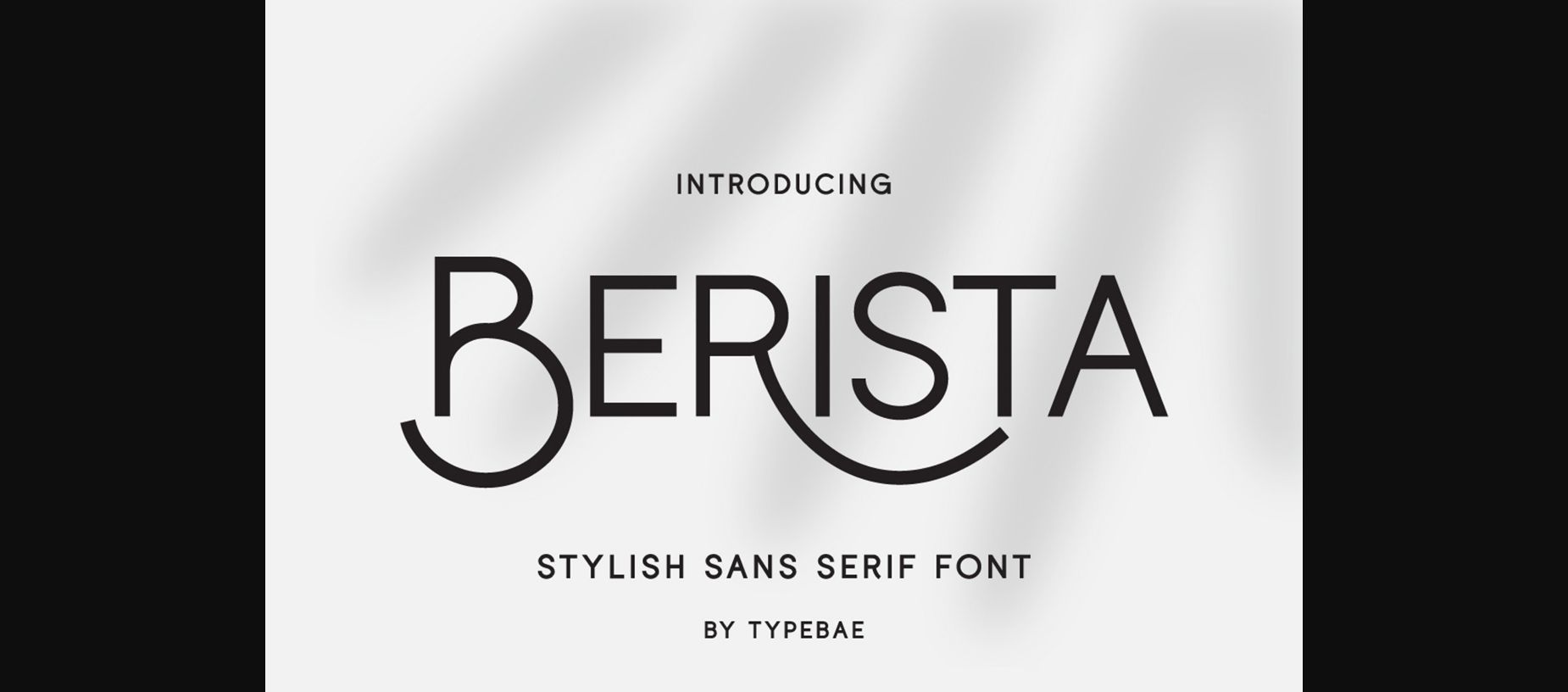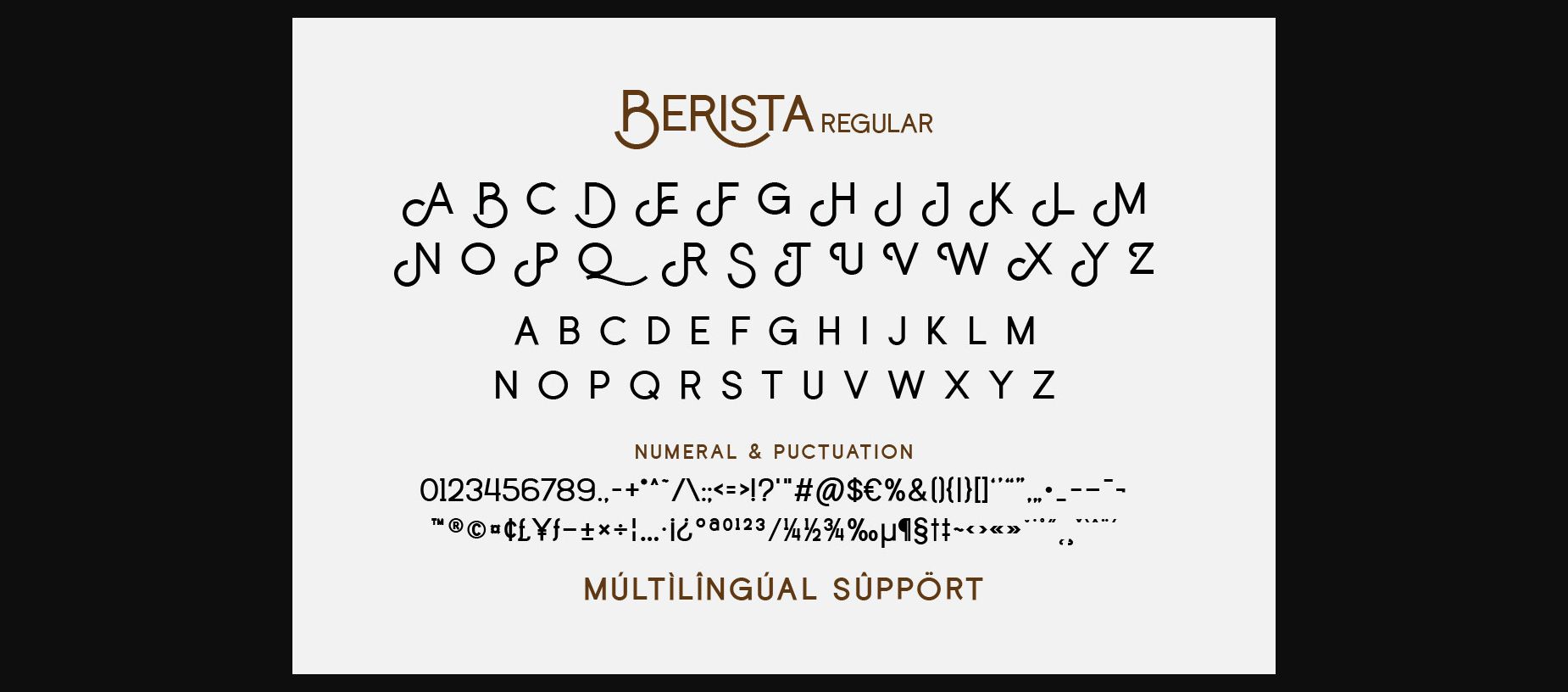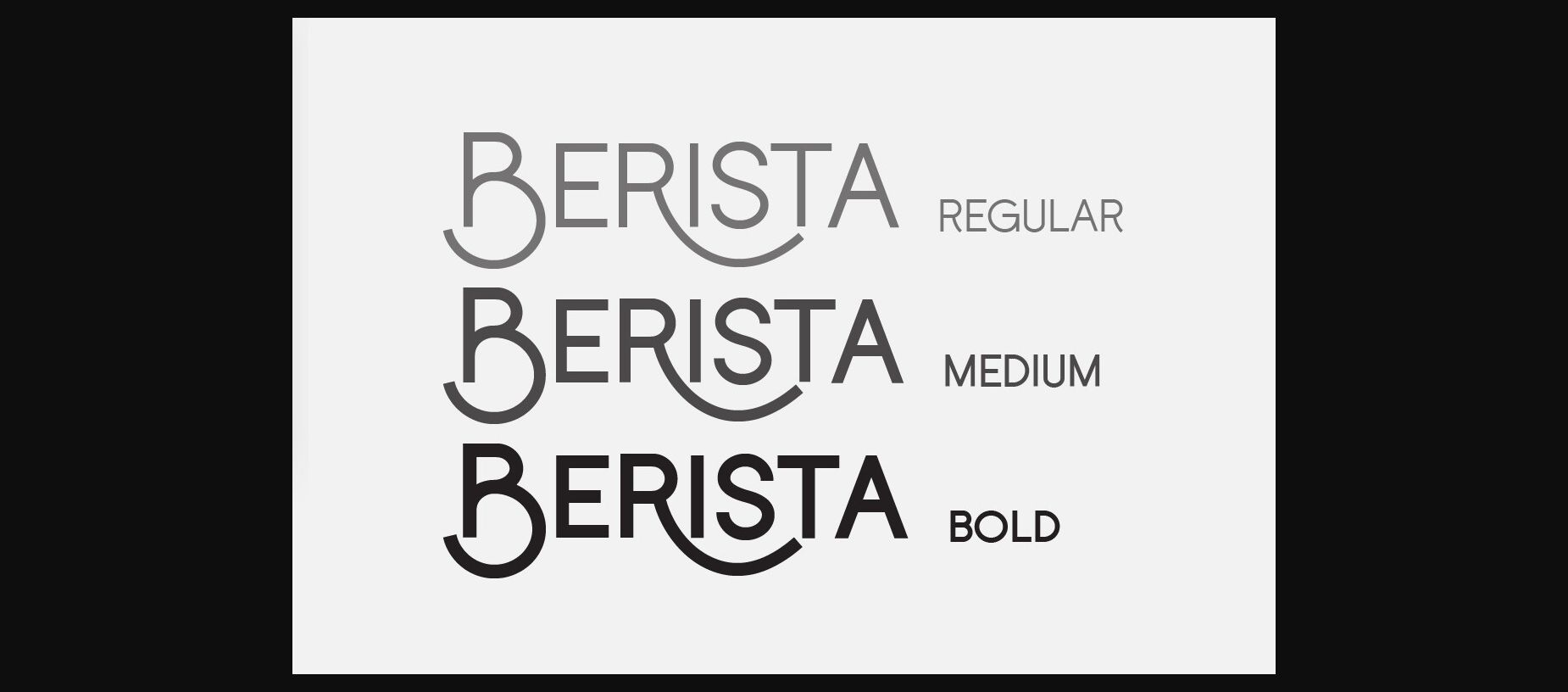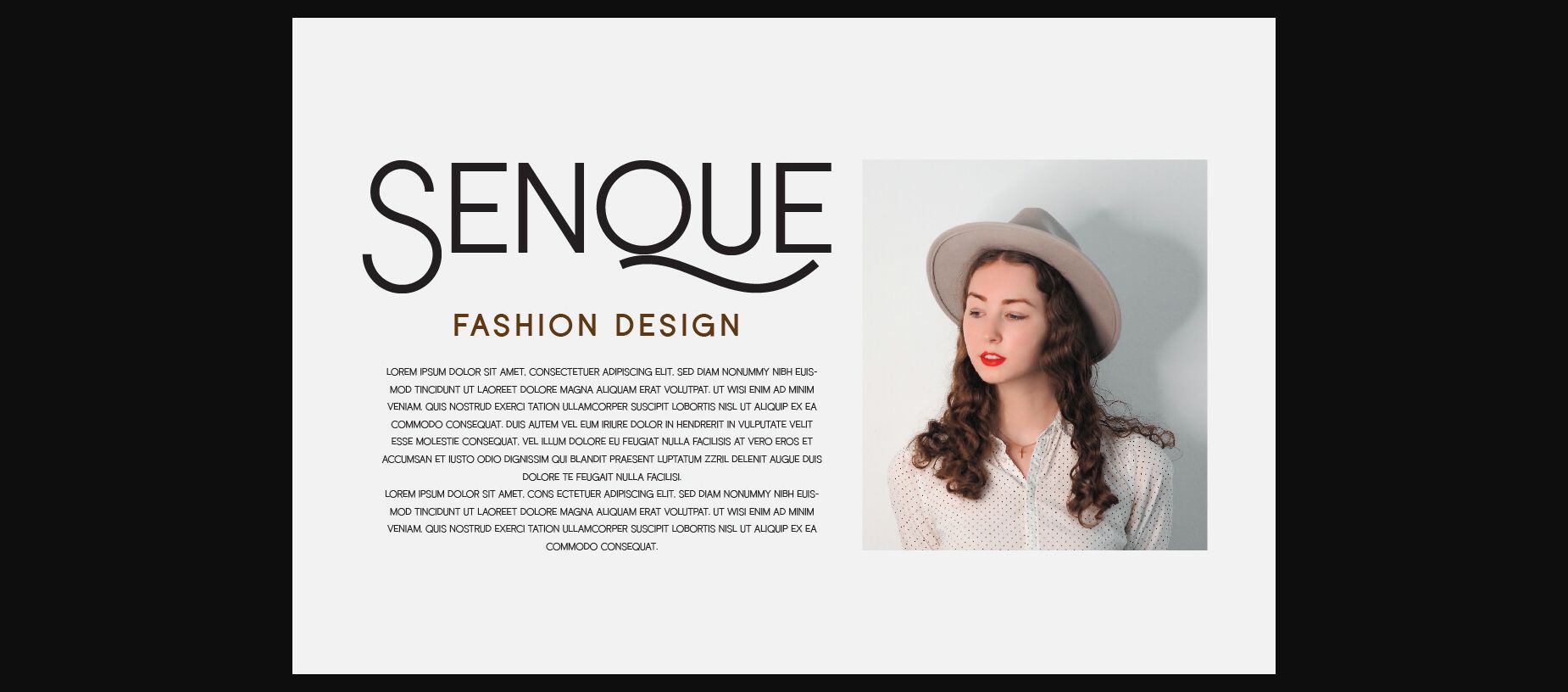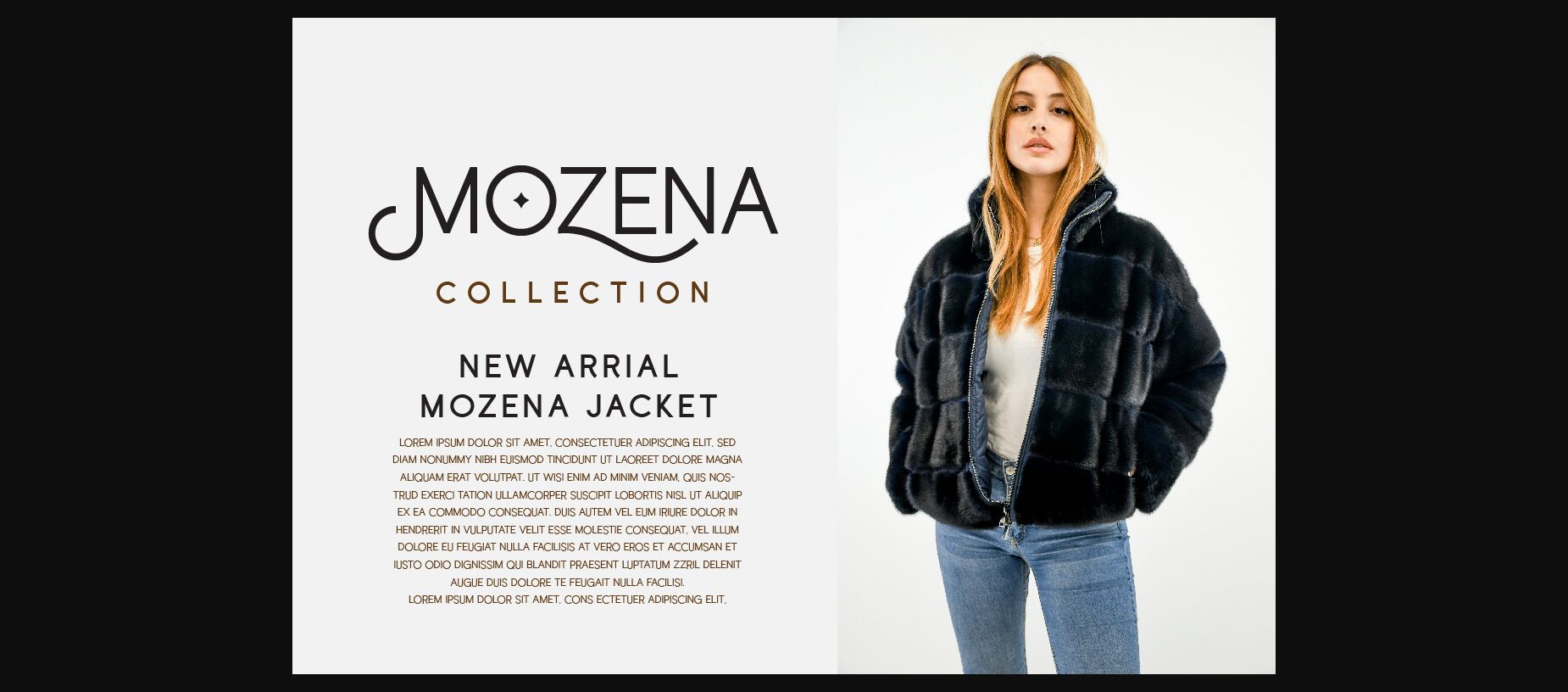
About Berista Font
Berista is a stylish and elegant sans-serif font. It can easily be matched to an incredibly large set of projects, so add it to your creative ideas and notice how it makes them stand out!